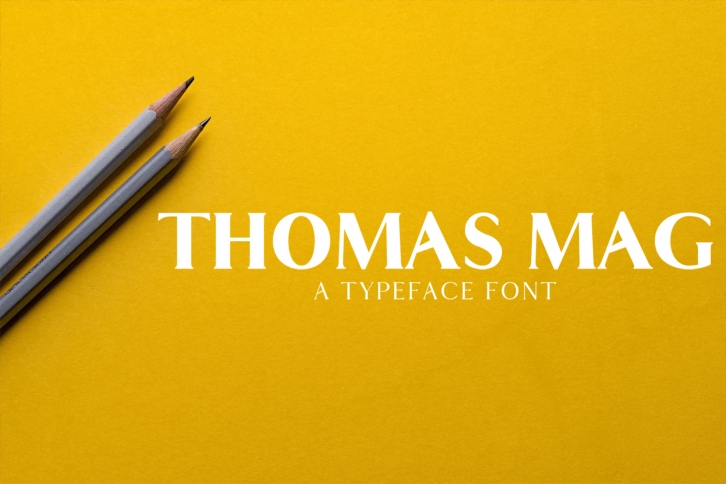
Thomas Mag Serif 9 s Family Pack is a beautiful font that was designed by Creativetacos. It's a great choice for designers and creatives who need such a font. It was released on May 2, 2017 and the file size is 3.26 MB. Thomas Mag Serif 9 s Family Pack may give a more youthful, expressive and casual look to your project. It is a very beautiful, refined, elegant, and high-quality font.